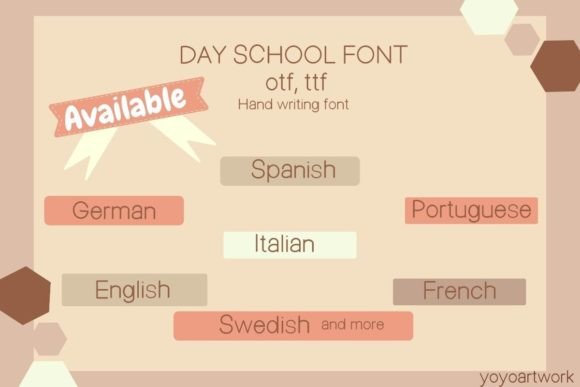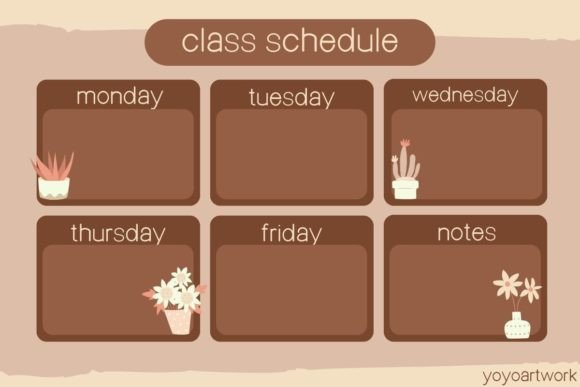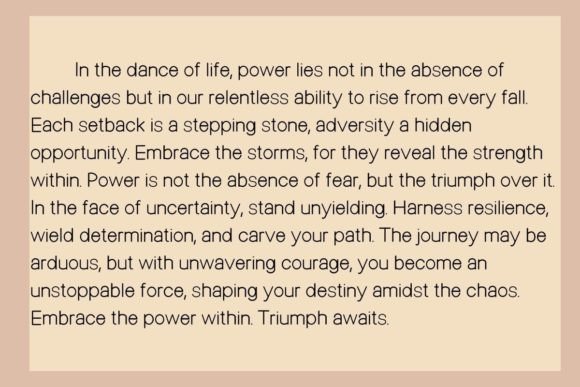
Introduction to Day School Font
Introducing our school’s distinctive font, a harmonious blend of modernity and classic elegance.
With clean lines and a timeless appeal, this font reflects our institution’s commitment to excellence in education Its legibility ensures clear communication, while its unique aesthetic sets a tone of sophistication.
Day School Font offers exceptional quality and versatility, making it a valuable addition to your design toolkit. Whether you’re creating for personal projects or commercial use, Day School Font delivers professional results.